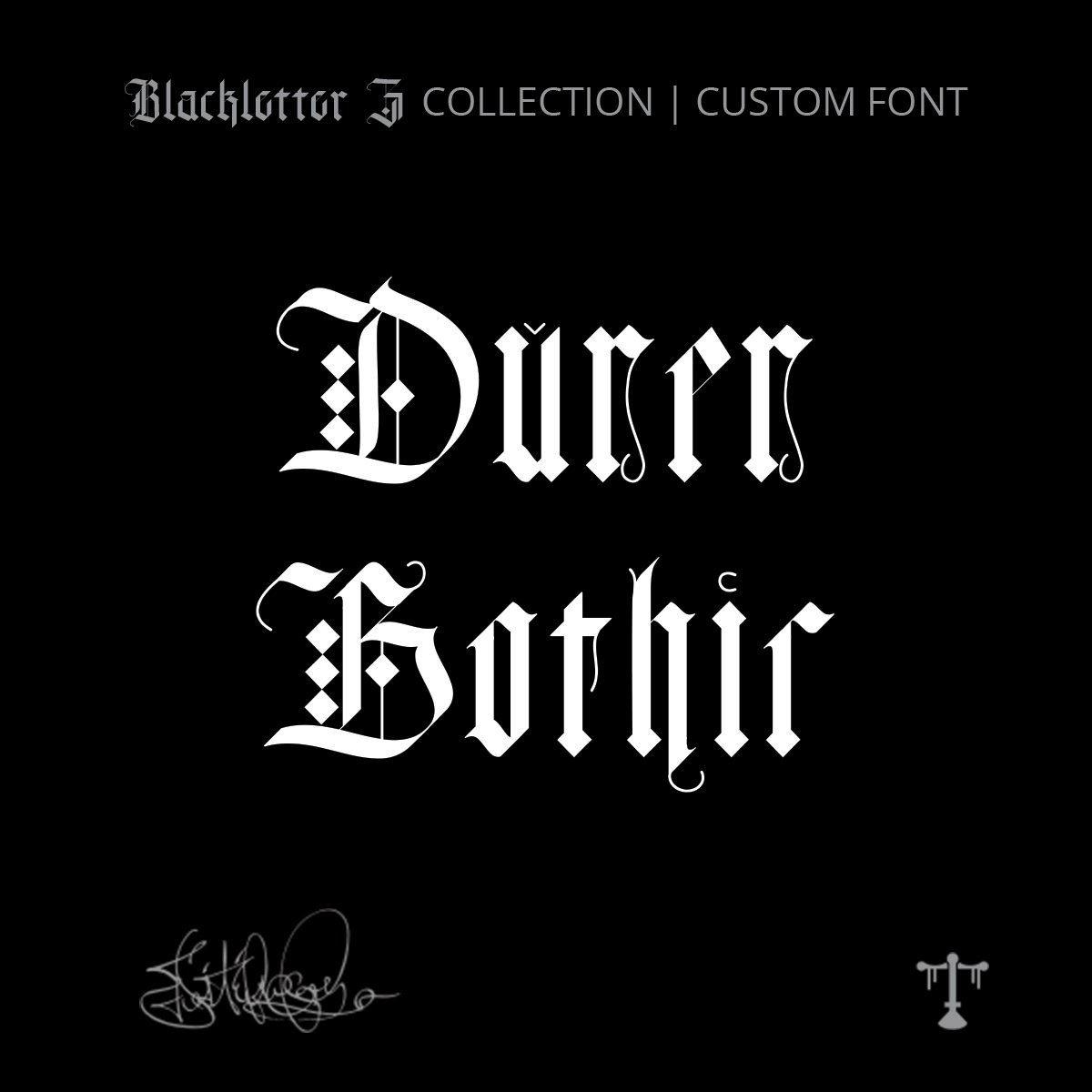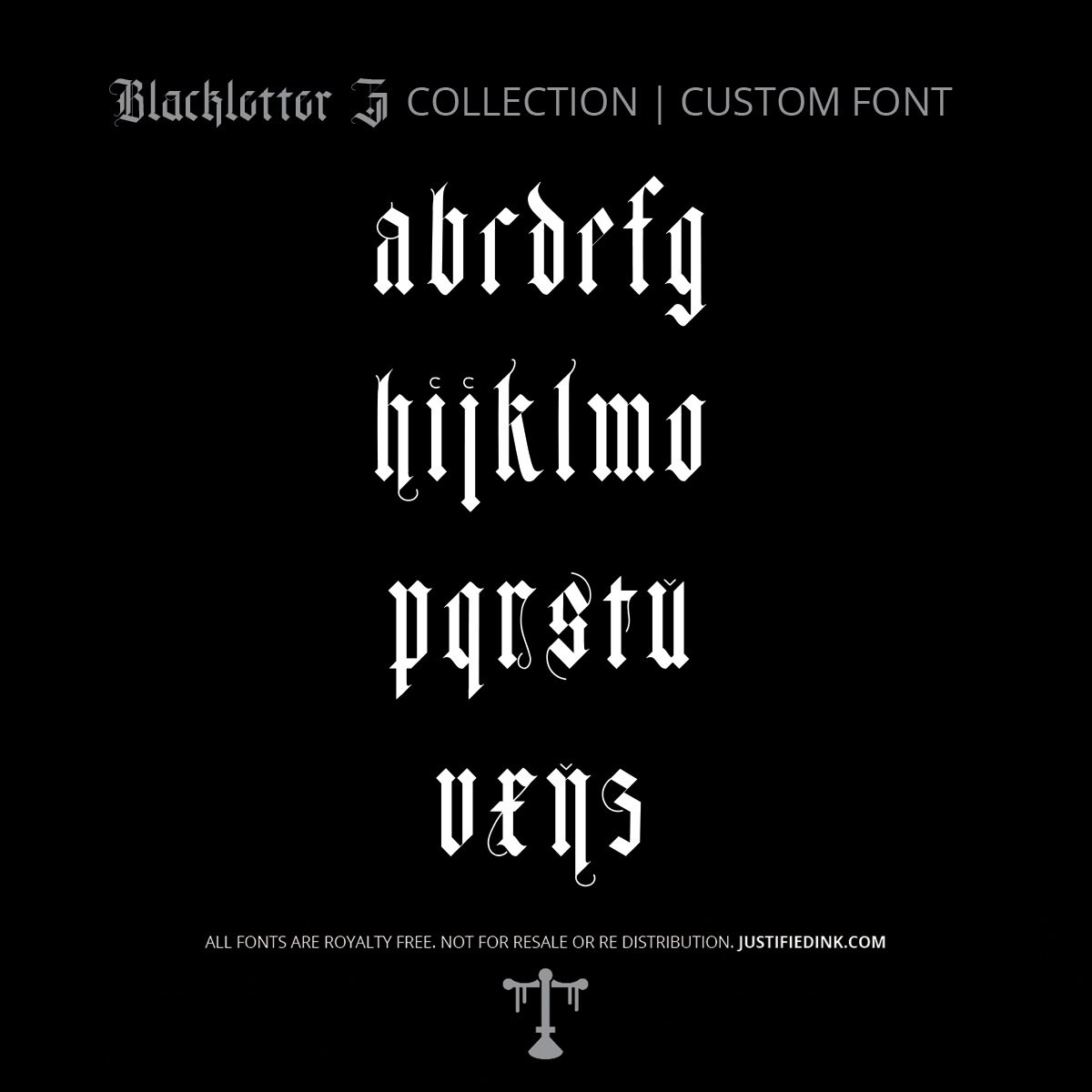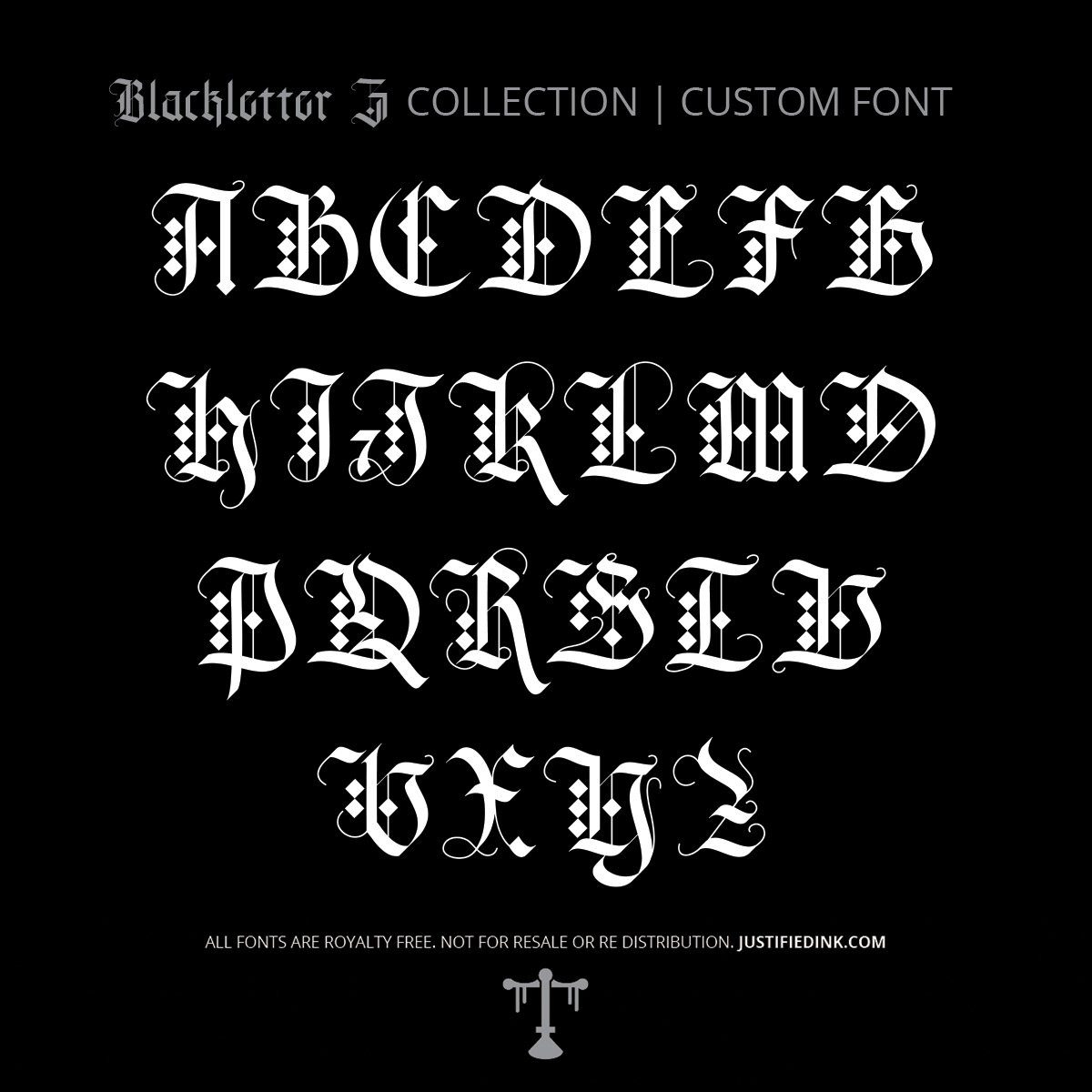
Durer Gothic (1 style) - Custom Font
Renaissance Lines, Gothic Spirit
Durer Gothic blends the precision of Albrecht Dürer’s engravings with the essence of medieval gothic script. With sharp angles and balanced forms, this font bridges art history and modern design. Perfect for gothic lettering projects, tattoo fonts, or branding with a darkly refined edge, Durer Gothic channels centuries of craft into every stroke.